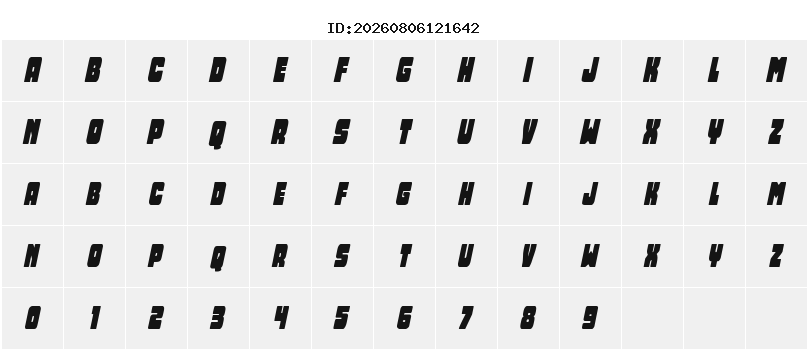
Opus Mundi Condensed Italic Preview
• Font Name: Opus Mundi Condensed Italic
• Font Style: Condensed Italic
• Full Font Name: Opus Mundi Condensed Italic
About Opus Mundi Condensed Italic.ttf
Opus Mundi Condensed Italic.ttf is a modern, elegant sans-serif font designed for ultimate readability and visual harmony. Perfect for branding, headlines, web design, and print materials.